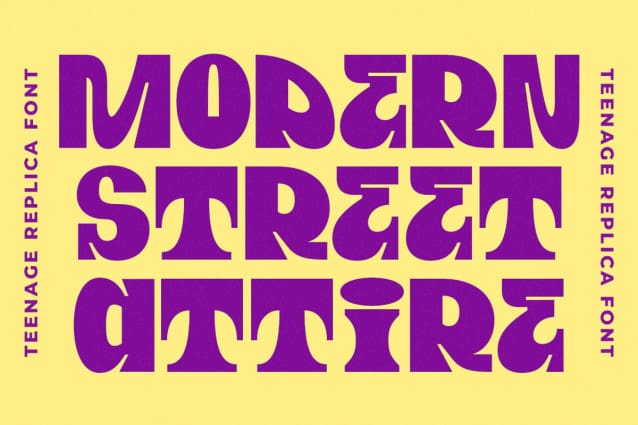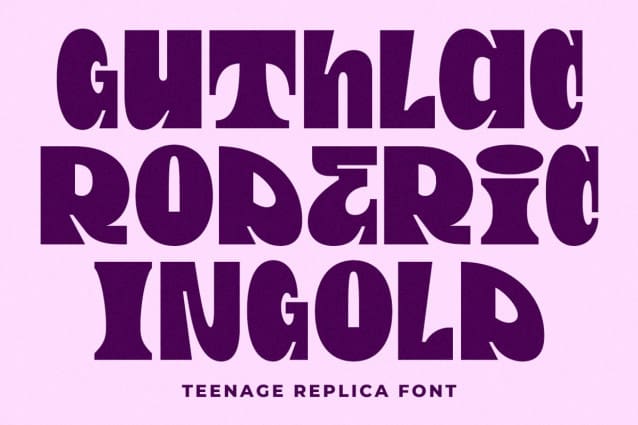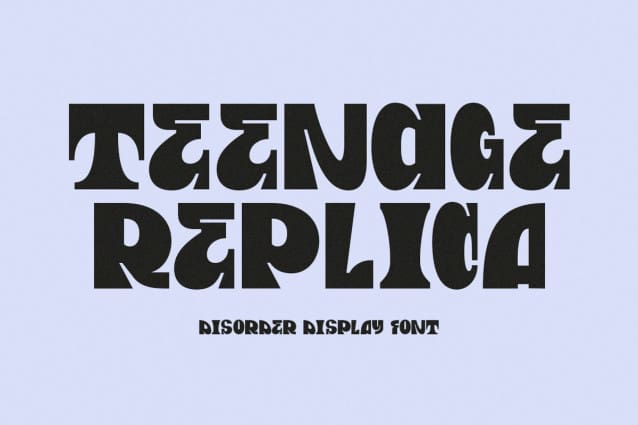
Teenage Replica Font
Teenage Replica Font is a disorder display font that captures the essence of teenage rebellion and chaos. With its edgy and irregular design, this font conveys a sense of adolescent angst and nonconformity.
Ideal for projects that require a bold and unconventional look, Teenage Replica is a perfect choice for expressing individuality and youthfulness in your designs.